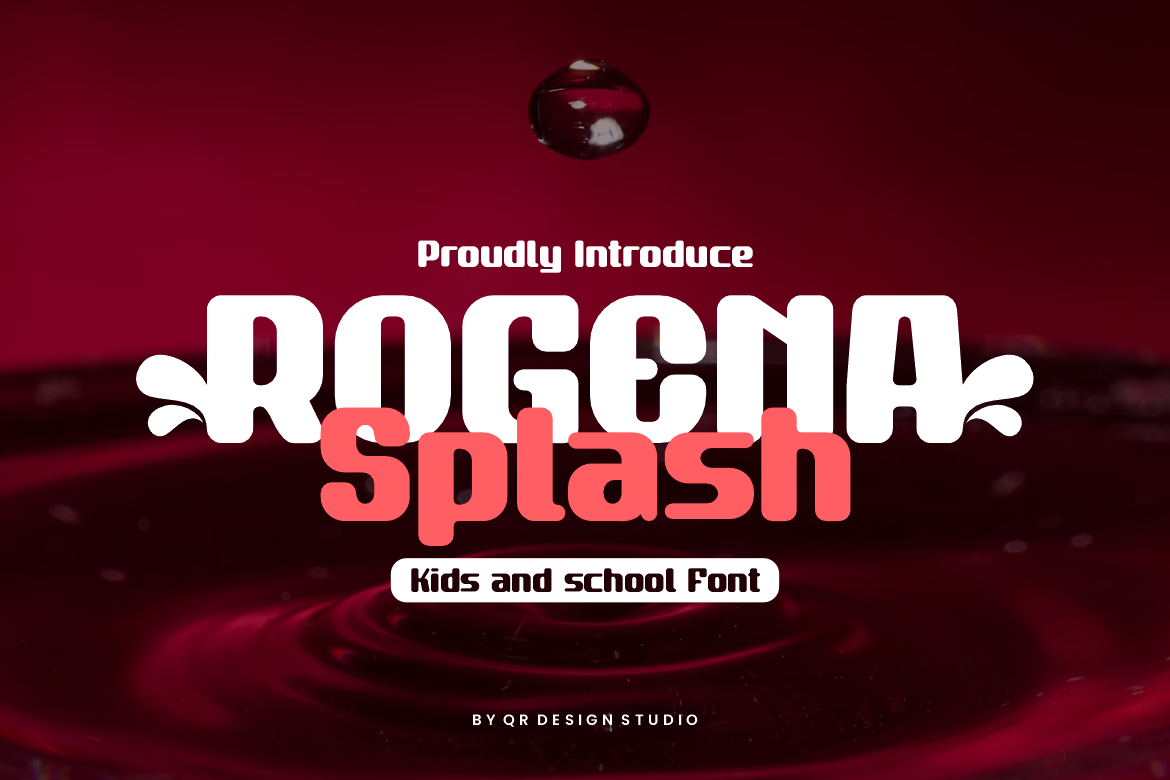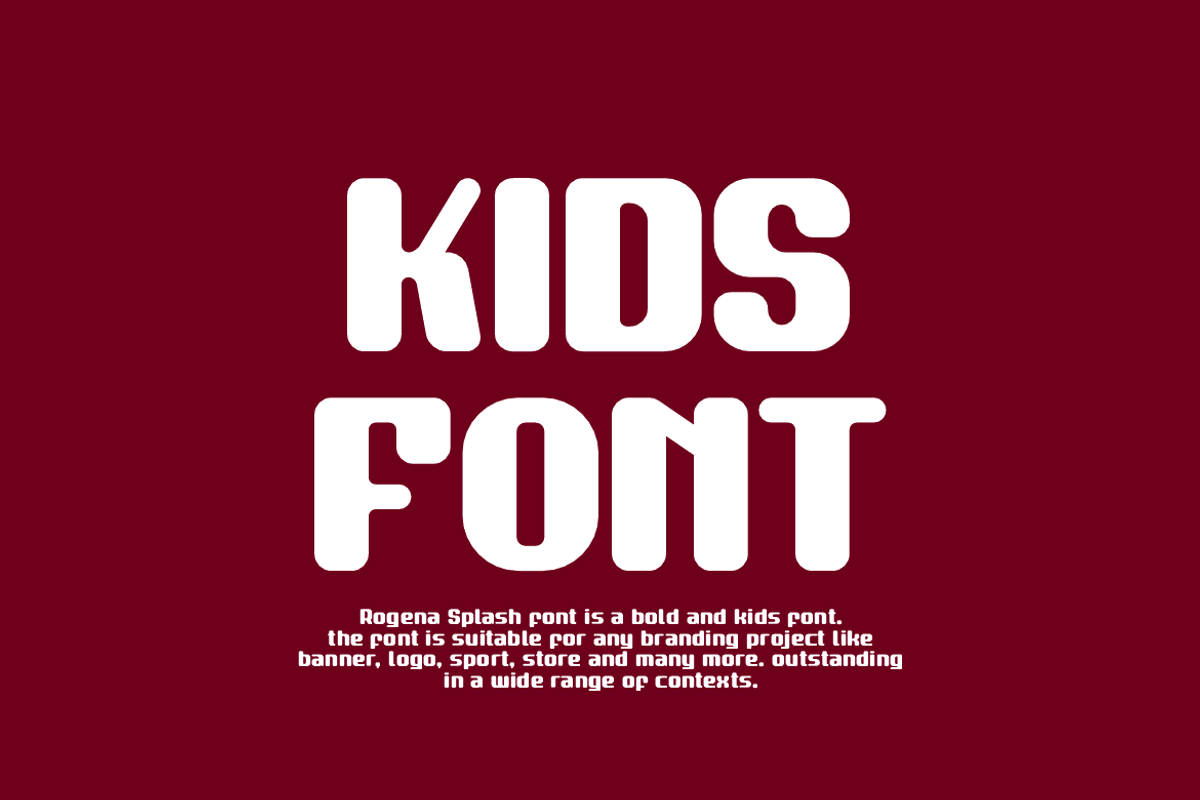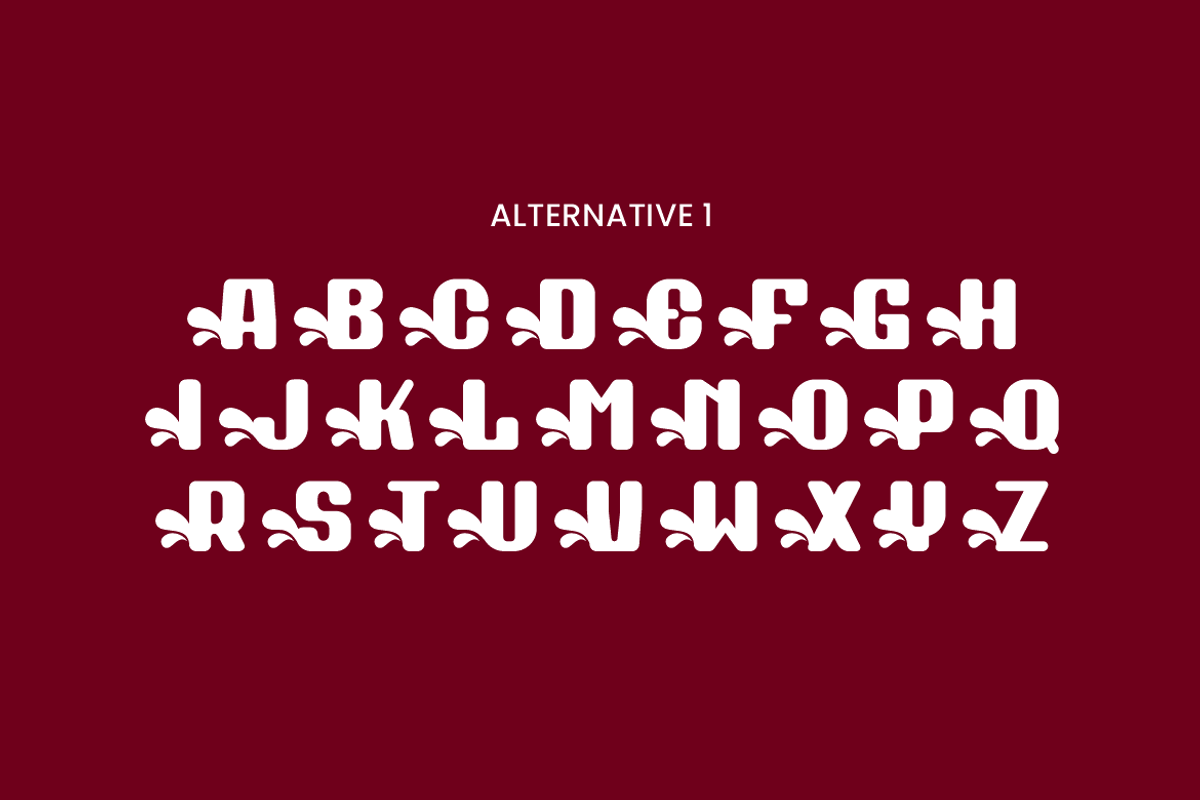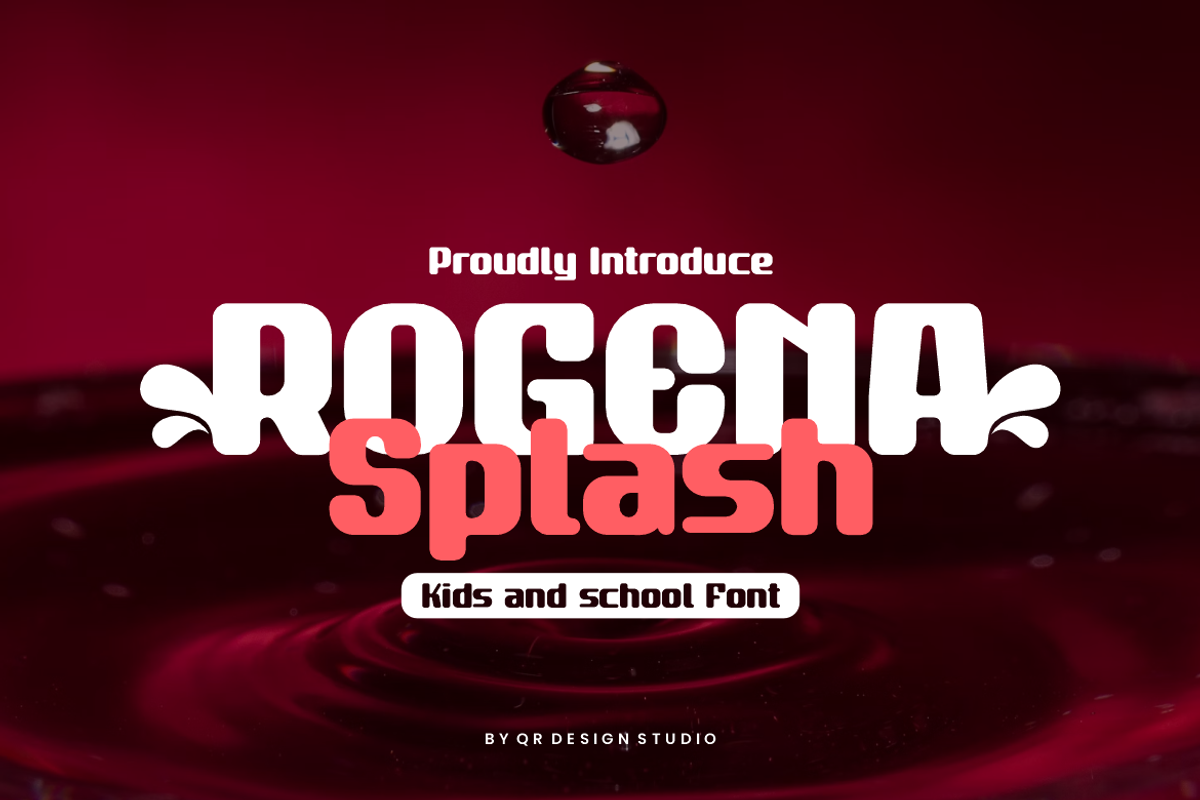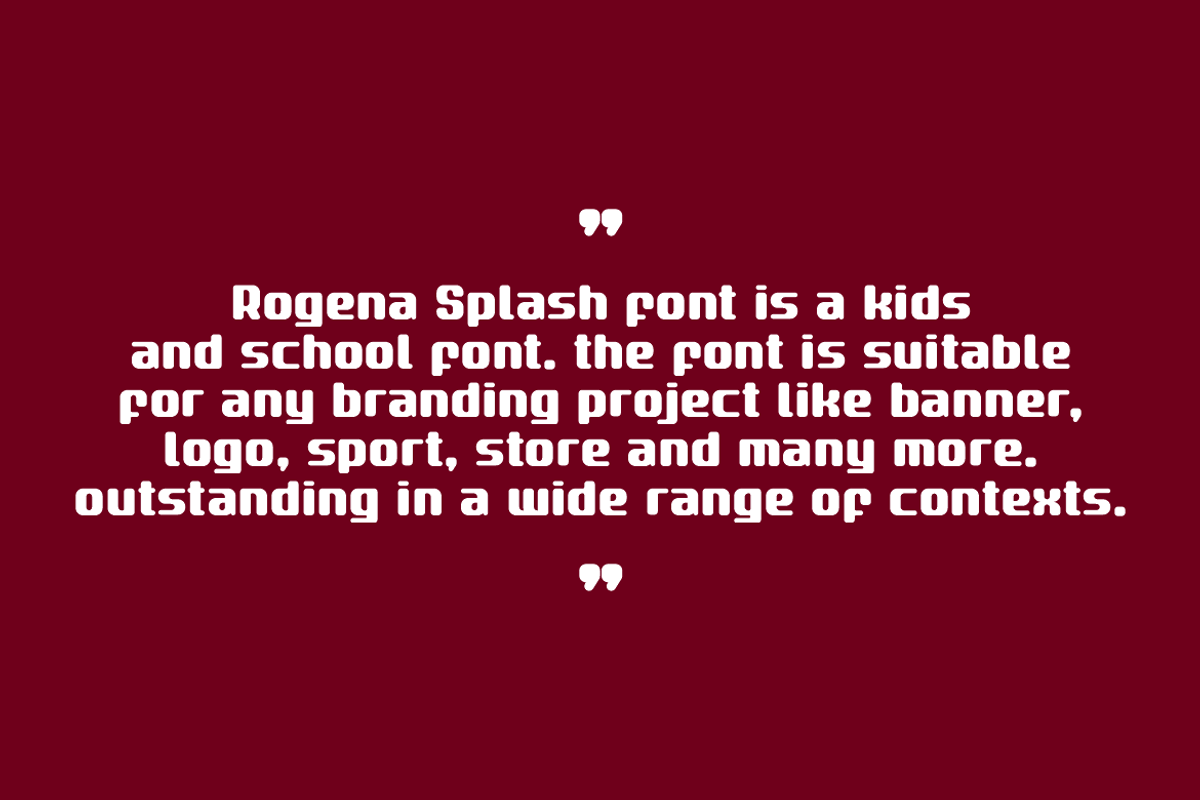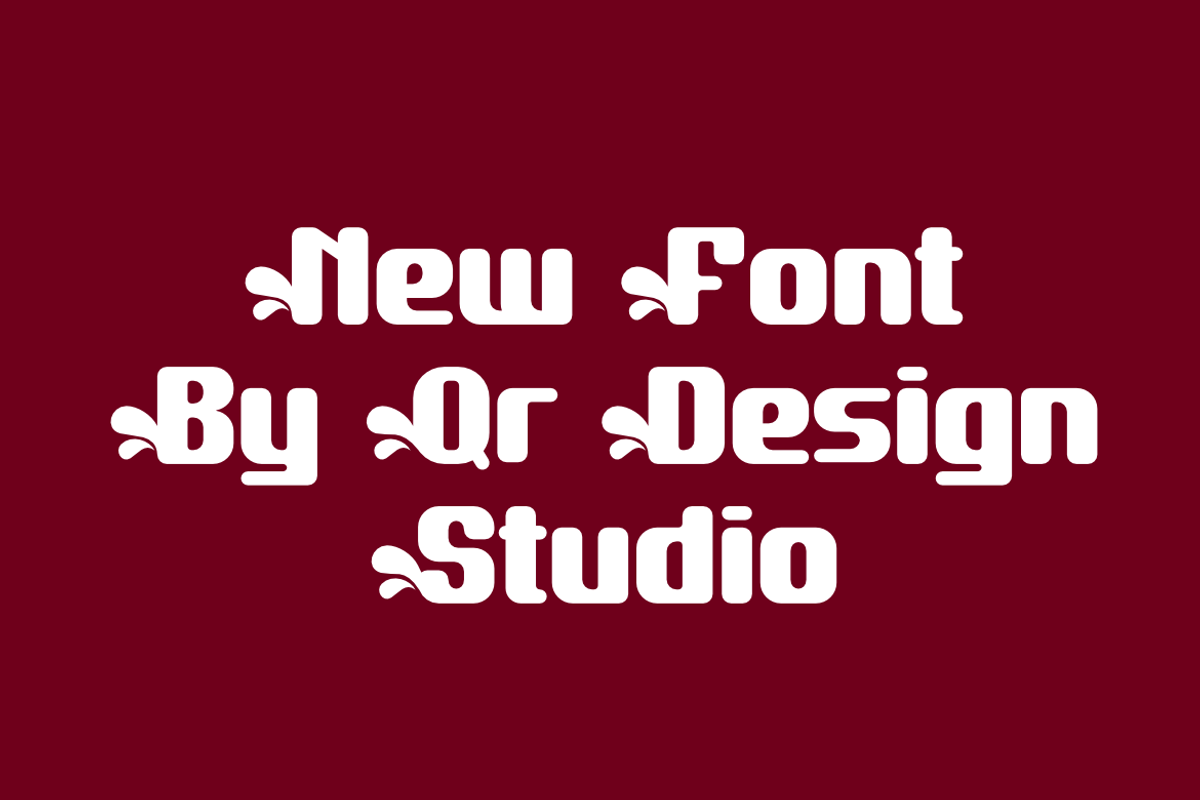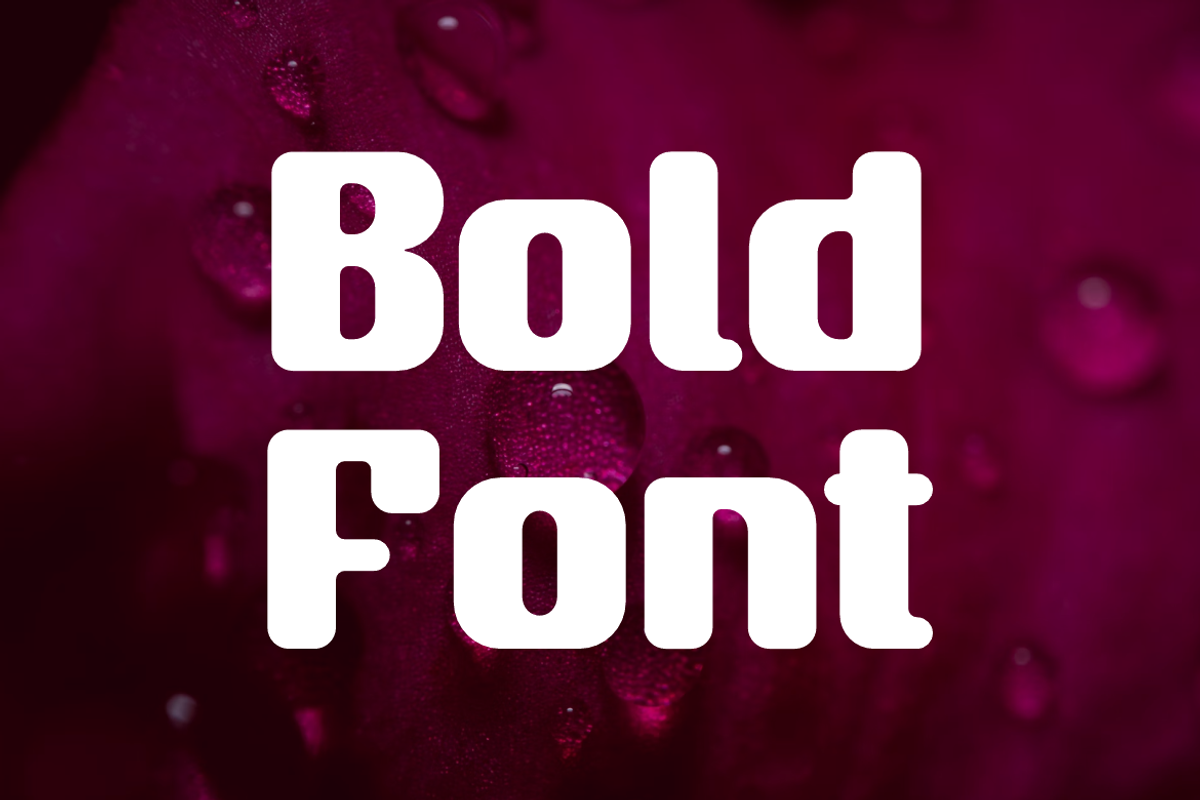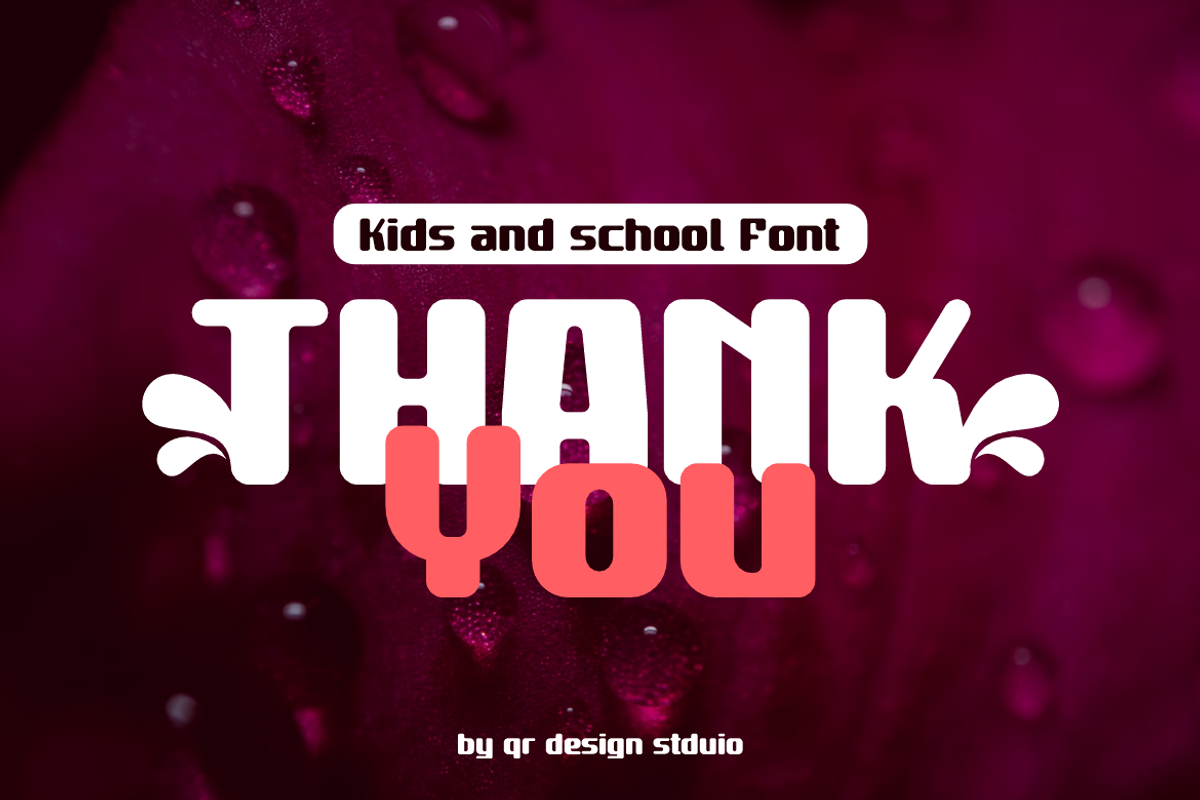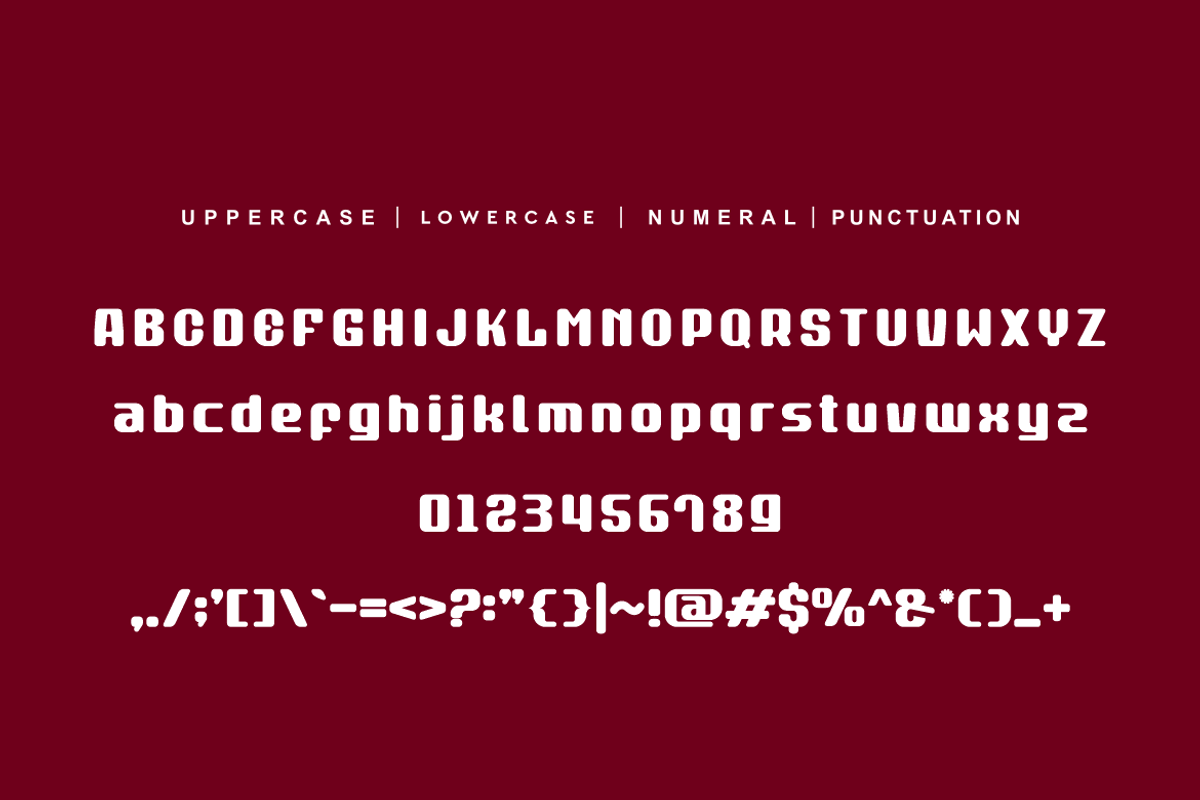
Rogena Splash Rounded & Liquid Font
Rogena Splash - Rounded & Liquid Font is a bold and authentic display font. The font is suitable for any branding project like poster, logo, sport, and many more. Outstanding in a wide range of contexts.